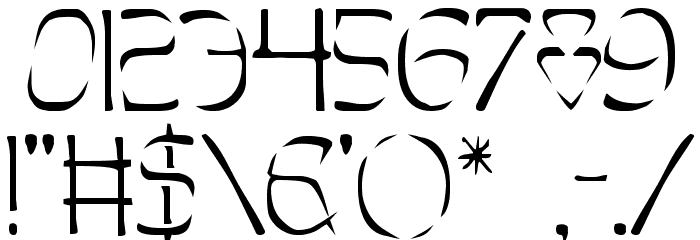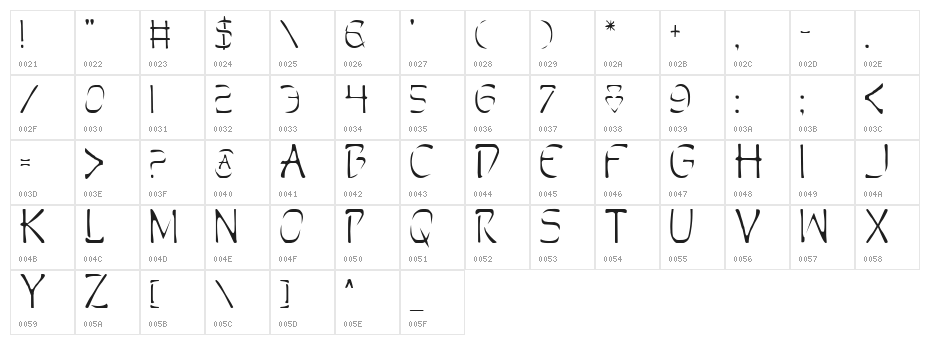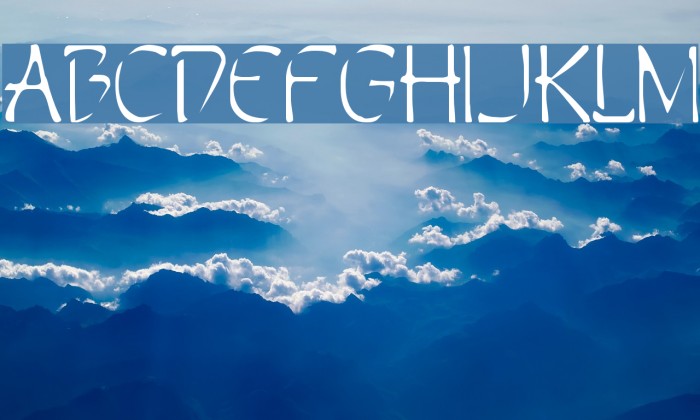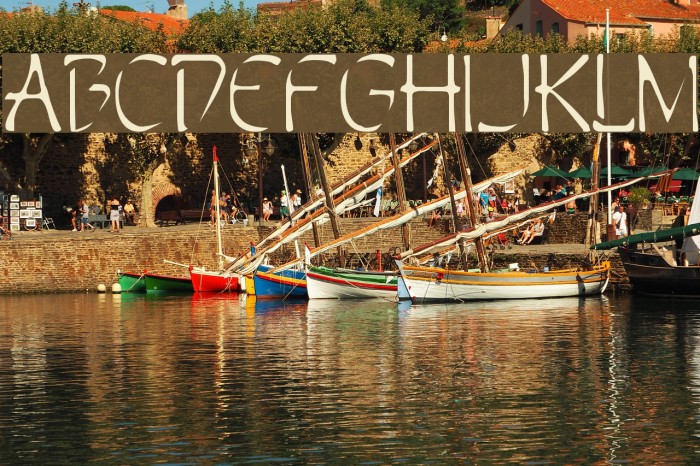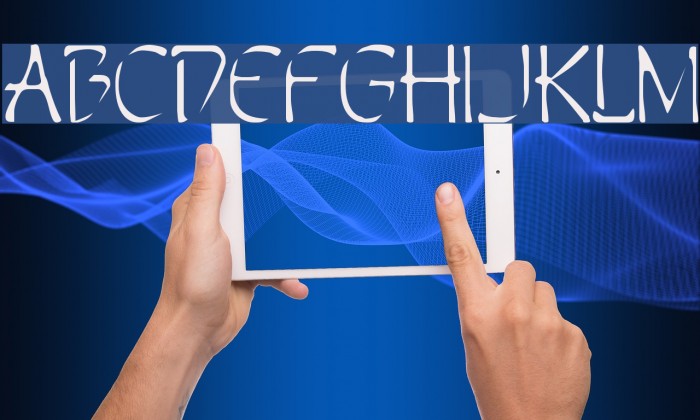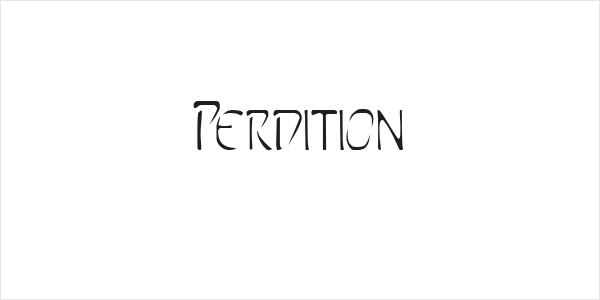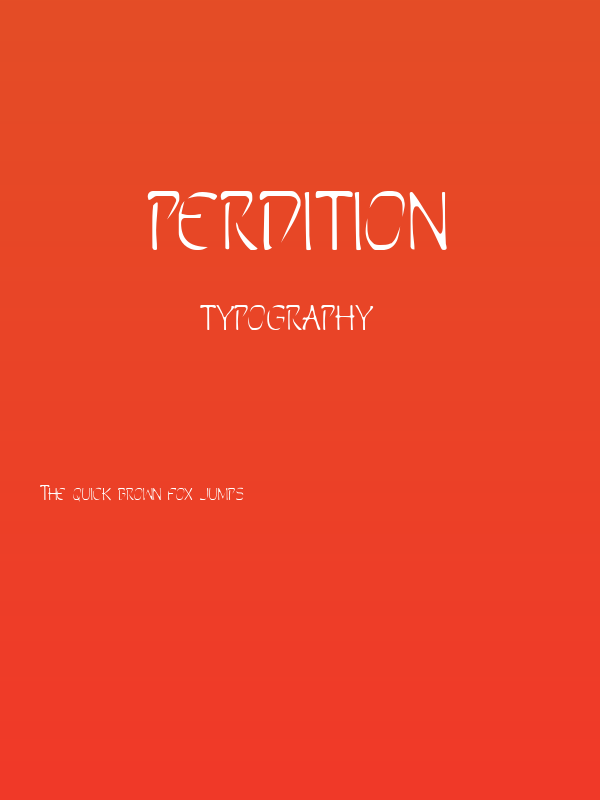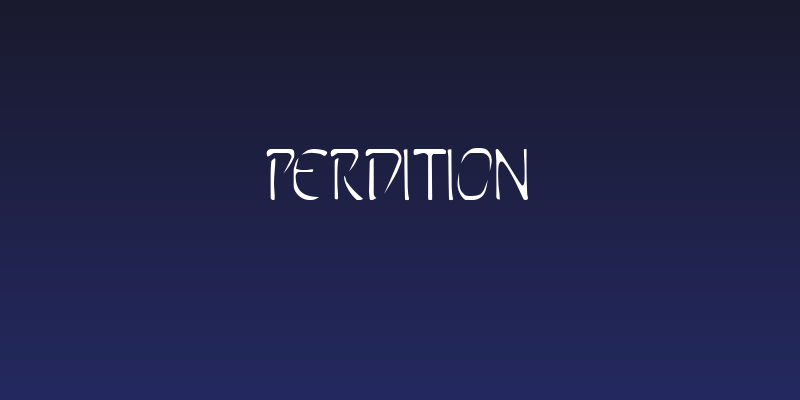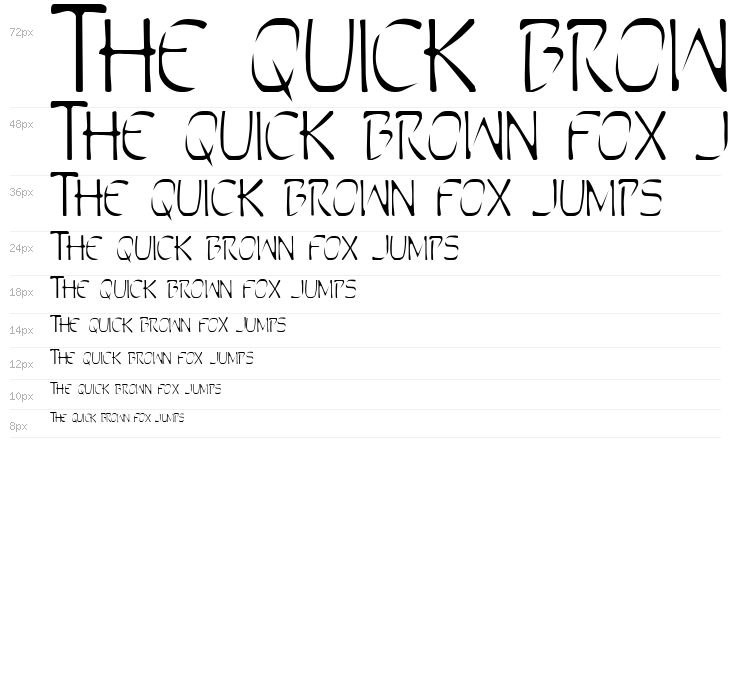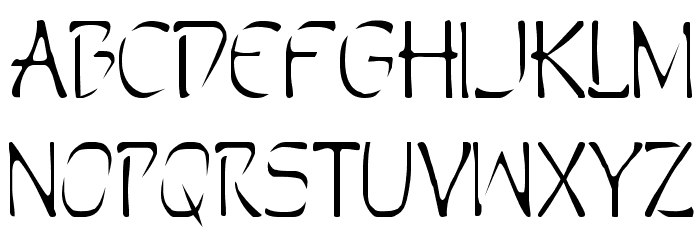
Perdition Font
Perdition Description
This font features a unique and edgy design with sharp, angular strokes and a futuristic aesthetic. The characters are crafted with a blend of curves and straight lines, creating a dynamic and visually striking appearance. The uppercase letters are bold and commanding, while the lowercase letters maintain a consistent style that complements the overall design. The numerals are distinct and easily readable, with a modern twist that aligns with the font's overall theme. Special characters are creatively designed to match the font's edgy style, making it suitable for projects that require a bold and unconventional look.